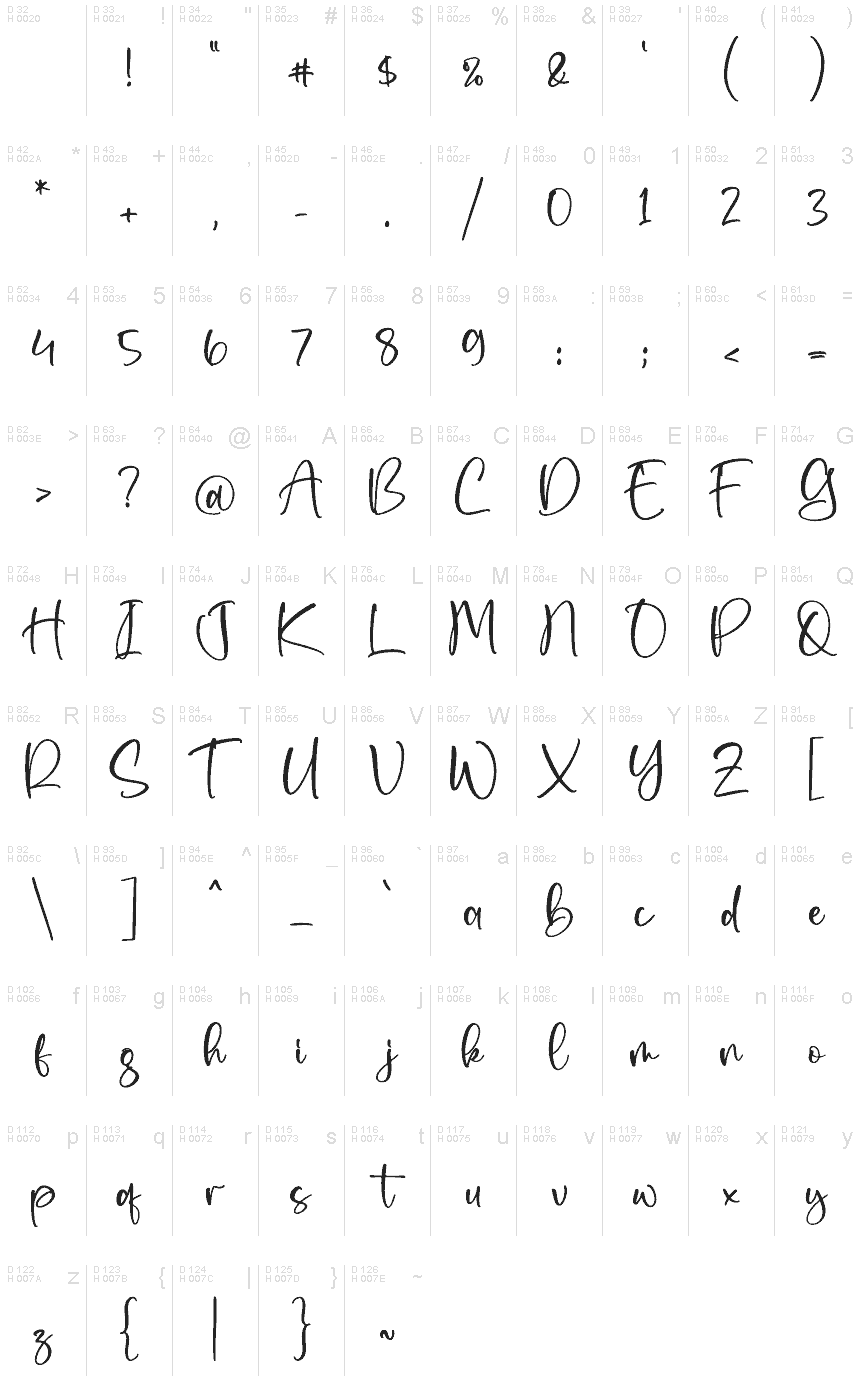
Margonda
Margonda font by Perspectype Studio - Letterena.com beautifully showcases the fluid and elegant touches of a free handwriting font. The overall construction is neat, pleasant, and youthful with expressive vibes that translate in every letter stroke. Thanks to its stylish design elements and the signature-like presence of each glyph, this open source tool is perfect for inviting a contemporary potential to your projects. Whether you want soft or bold typographic styles, this typeface keeps your interest at its core.
Use Margonda for small budget branding projects such as logo designs, stationery items or packaging products from all industries. Use it for personal business card designs where you would like to leave a mark and communicate authenticity right when handing them over. Websites can also benefit from eye-catching headings designed using Margonda or they can use the font in product descriptions published on web-platforms or print catalogues alike. This versatile font further welcomes all applications related to invitations (weddings included) or any other printed marketing material where soft typography will make an impression (magazine & newspaper covers).